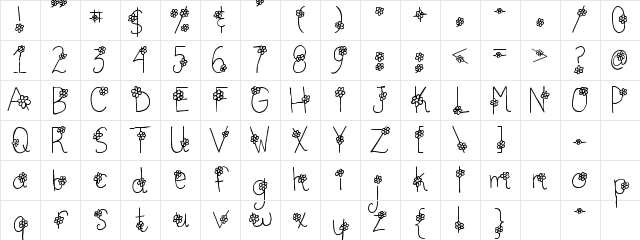
AMC_Daisy Doodle Regular
Design Context for AMC_Daisy Doodle
AMC_Daisy Doodle is a composed and adaptable typeface that performs quietly and consistently across a wide range of design contexts.
Pro Tip: Use AMC_Daisy Doodle in both headline and body roles to test its range before committing to a single application.